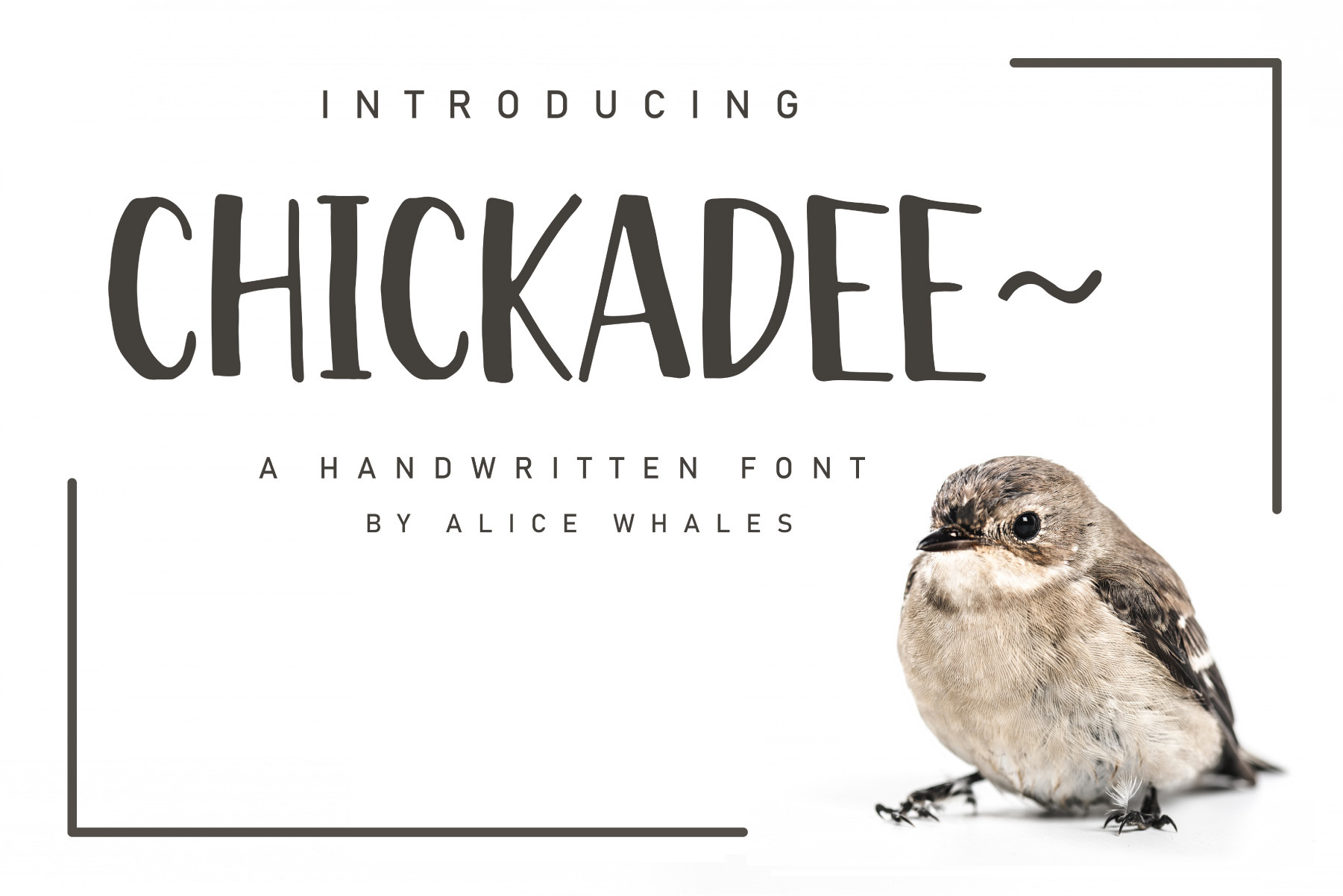
Chickadee - A Handwritten Font
Chickadee is doodle typeface perfect for any fun quirky design work! This font can be used for anything such as T-Shirt designs, phone cases, greeting cards, invitations, mugs and so much more! Get creative!